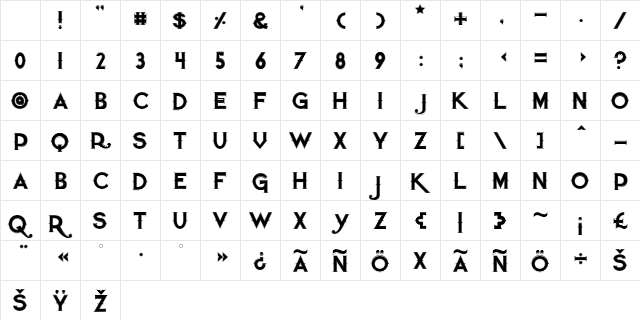
Complete Quiet the Thief OutlinedTight glyph index. Displaying only characters natively supported by Quiet the Thief OutlinedTight font.
Quiet the Thief is built around its visual character rather than neutral utility - its distinctive forms are designed to make an impression at display sizes.
Font Pairing: Pair with a clean neutral sans-serif for body copy to let Quiet the Thief's character lead without overwhelming the composition.
Pro Tip: Use Quiet the Thief exclusively at display sizes - it was designed to be seen, not read at length. Let a neutral companion handle body copy.